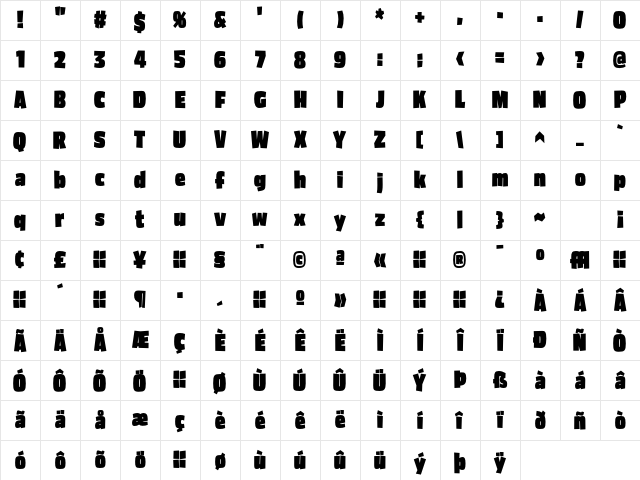
Asphalt BlackCondensed Free Font
Asphalt BlackCondensed
Style: BlackCondensed
Design Context for Asphalt
Asphalt is a composed and adaptable typeface that performs quietly and consistently across a wide range of design contexts. Its narrow stance lets it pack a punch even in space-constrained designs.